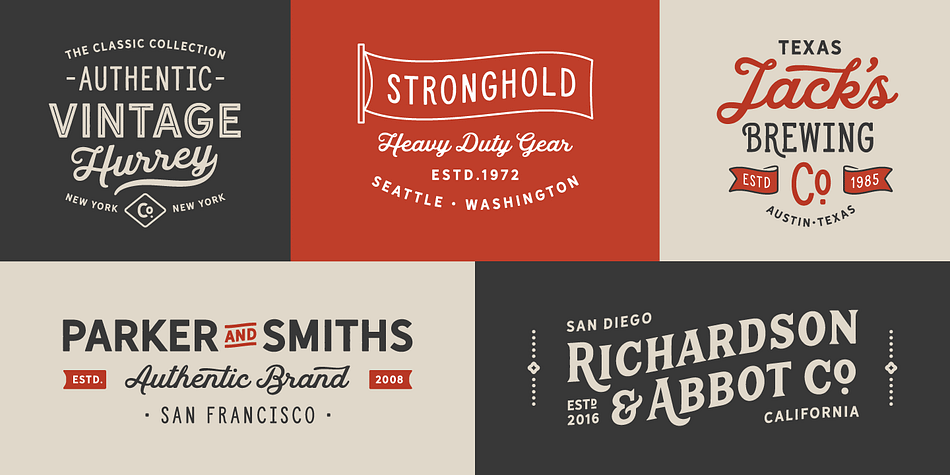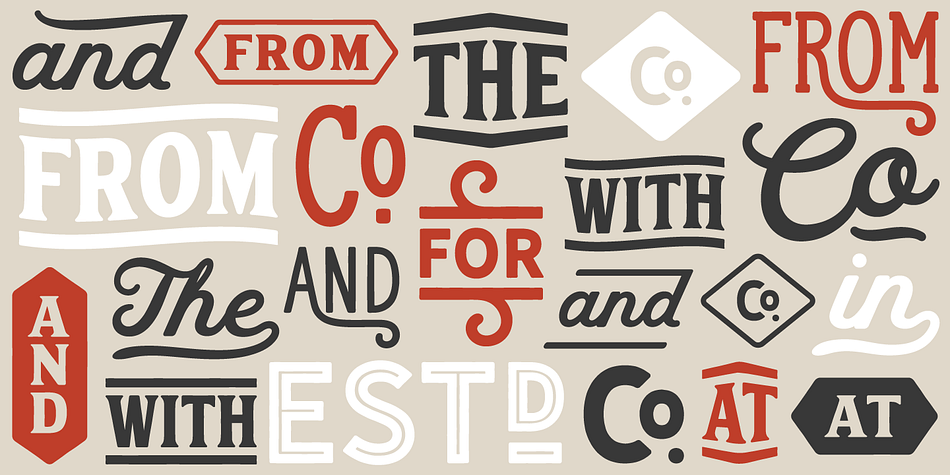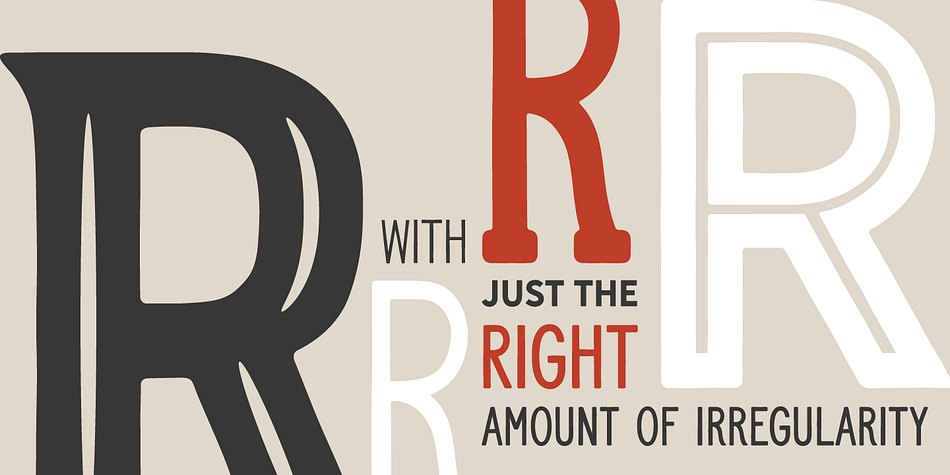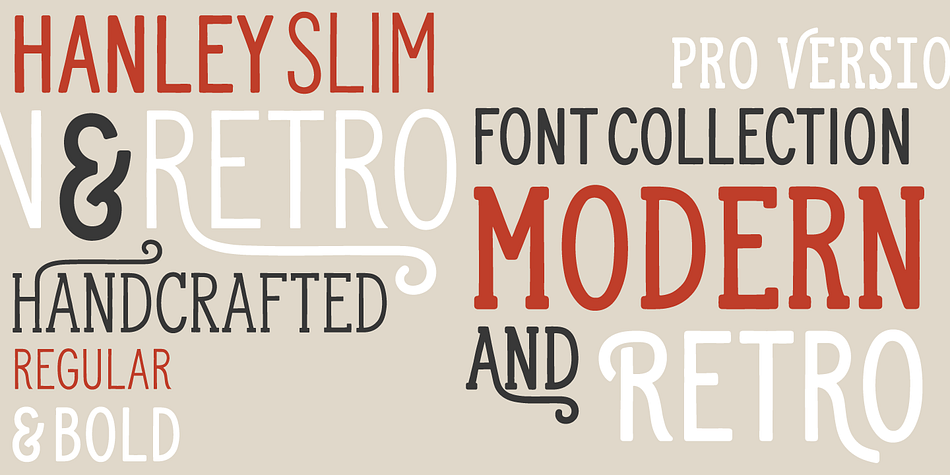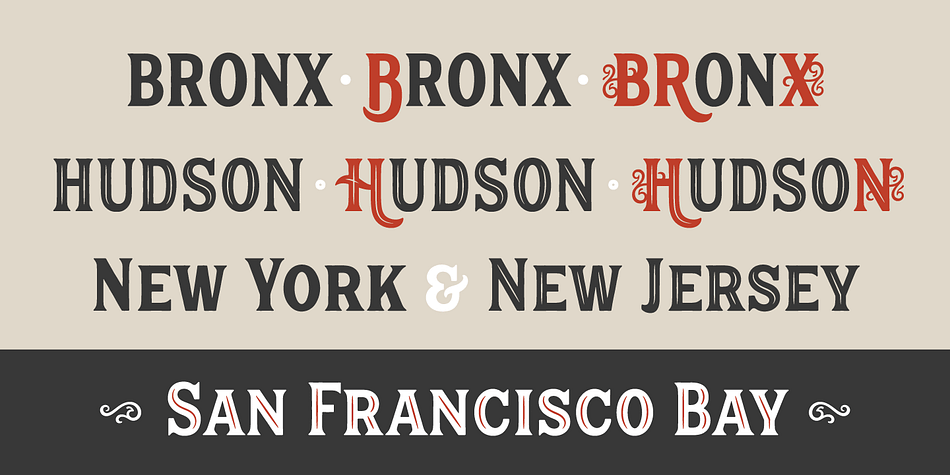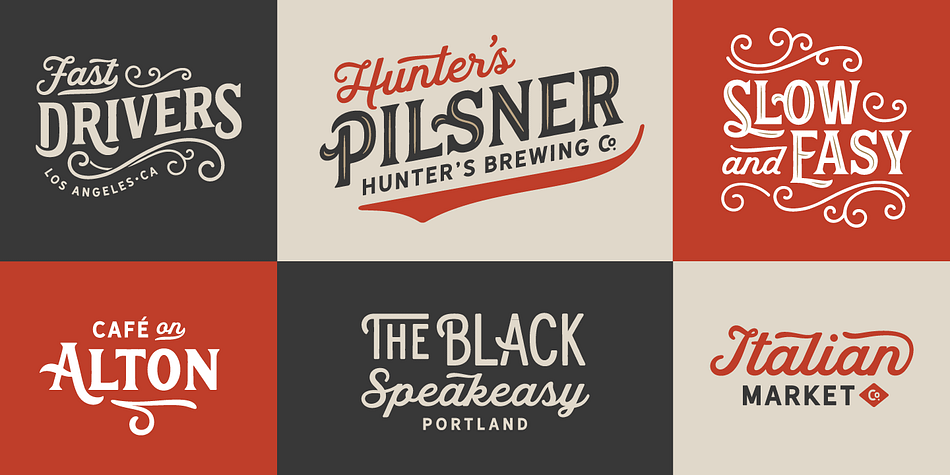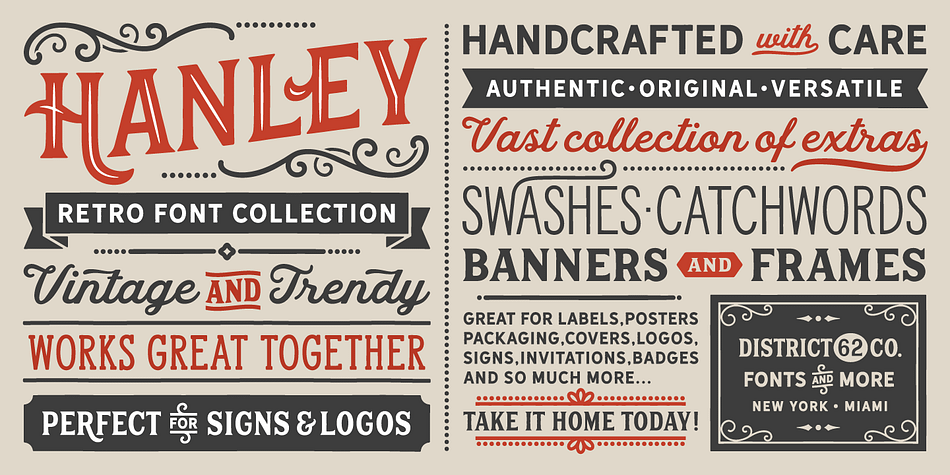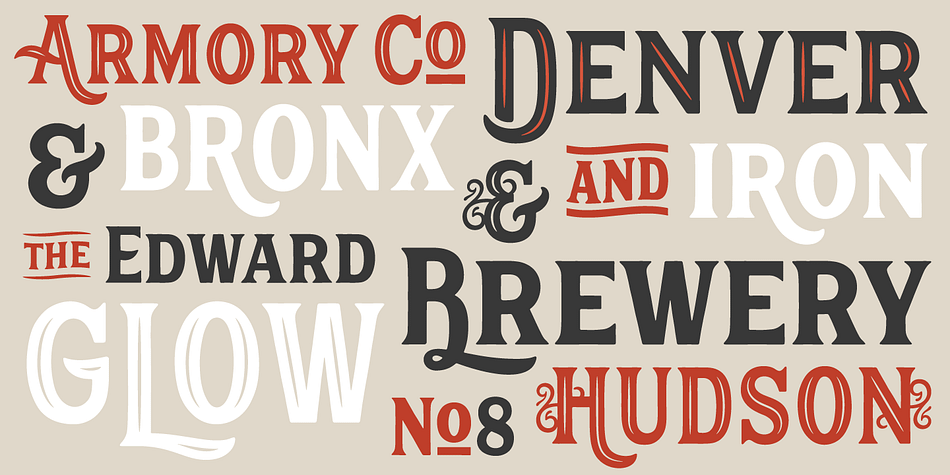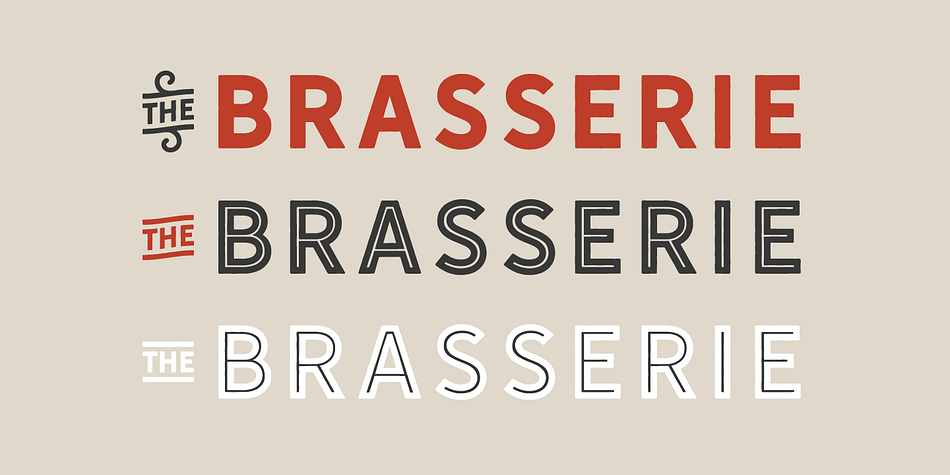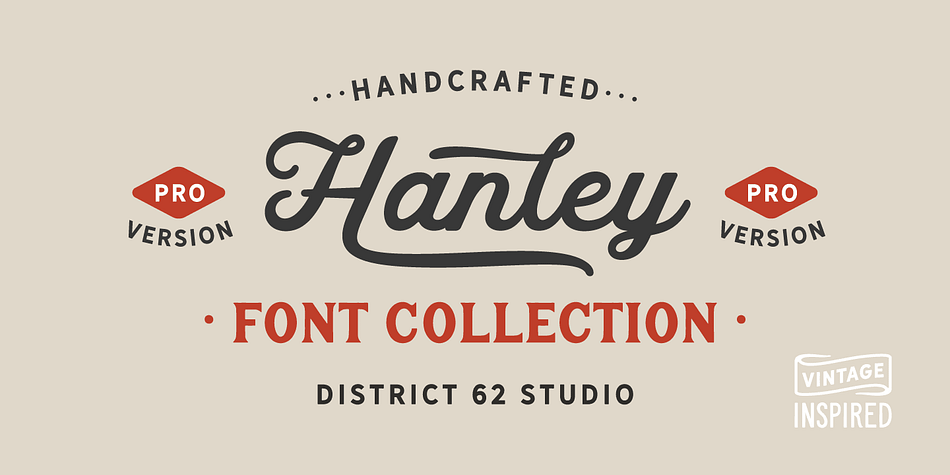
Designed by Aleksandar Veljasevic and Megan Tamaccio, Hanley Pro is a multiple classification font family. This typeface has fifteen styles and was published by District 62 Studio.
The origin story of the Hanley Font Collection starts with the Script. We were designing logos and kept feeling like we needed a different kind of script, vintage feeling but not dated, and not too baseball-y or too formal. We couldn’t find exactly what we were looking for, so we decided to create it ourselves.
After that we realized what we really wanted was good wood block looking lettering especially with small caps. And the collection just grew from there - a tall slim style, a monoline version of the script and of course a good sans.
We topped off the group with a large selection of catchwords and extras with plenty of swirls, swashes and frames. Hanley has just enough irregularity to the edges to impart a human feel, but it’s still clean.
Super versatile, all the styles work well together and can look authentically vintage or modern and hand-crafted.